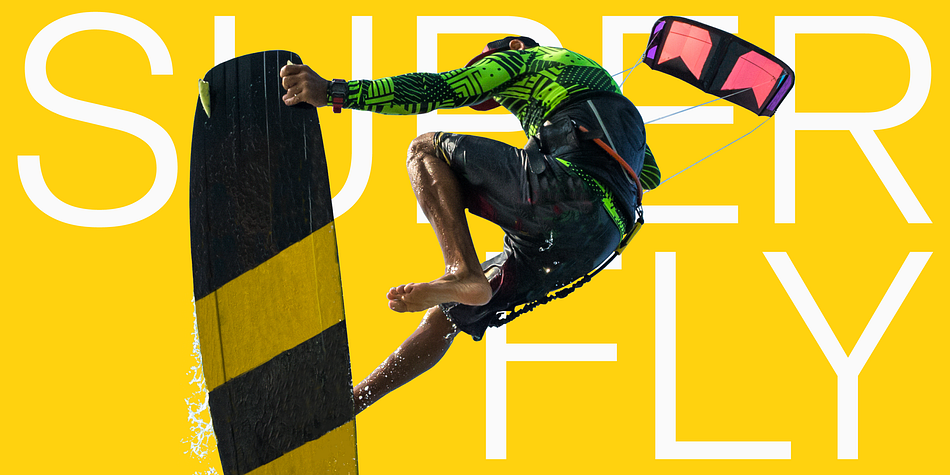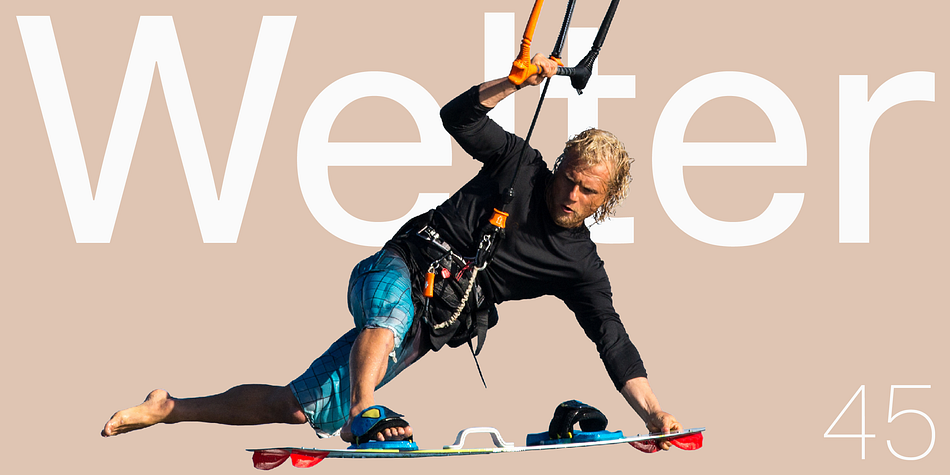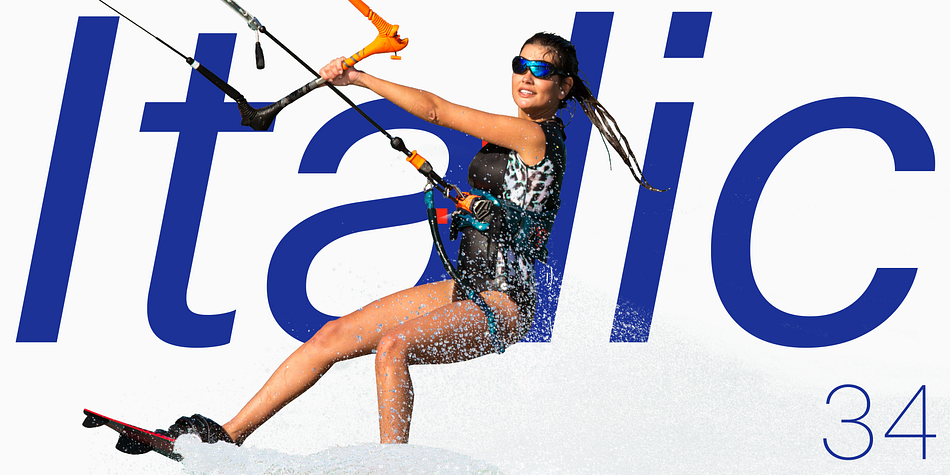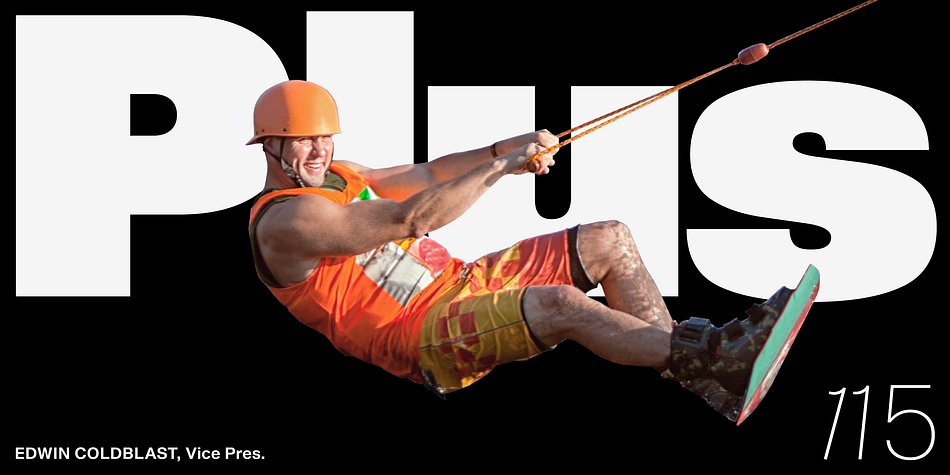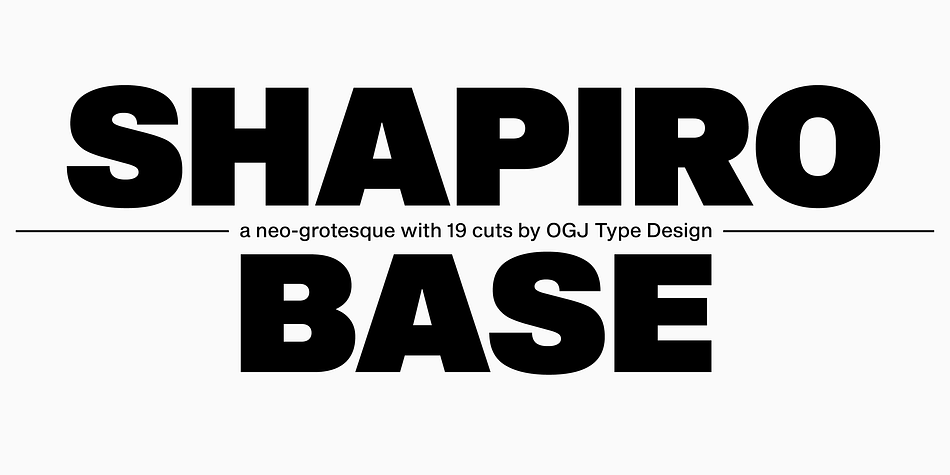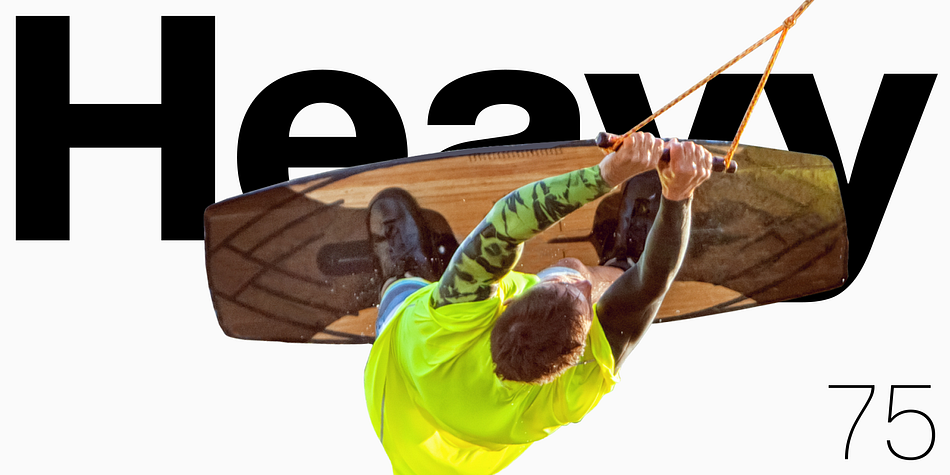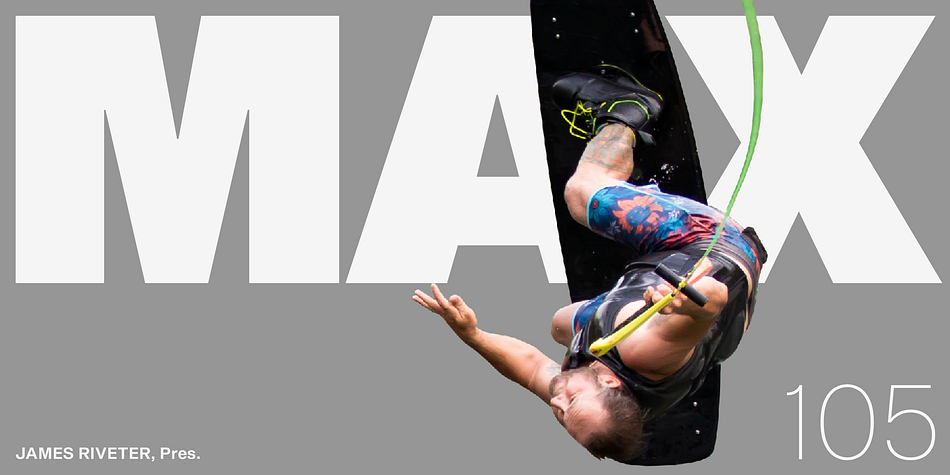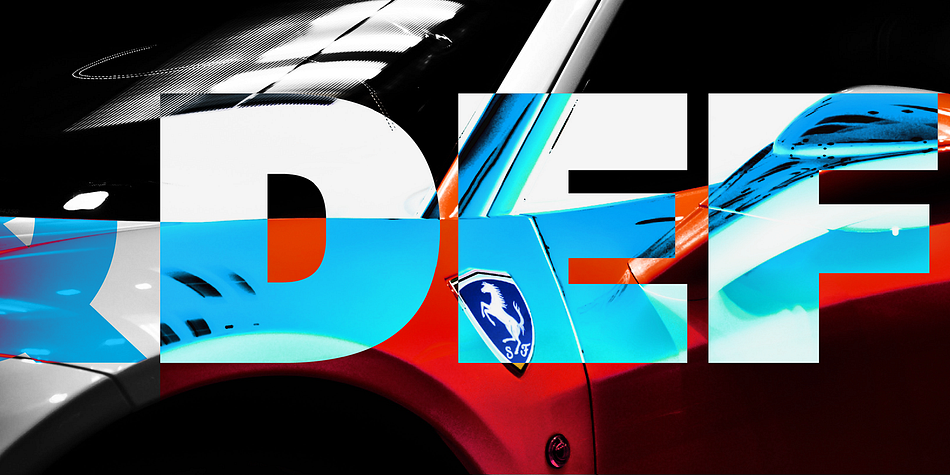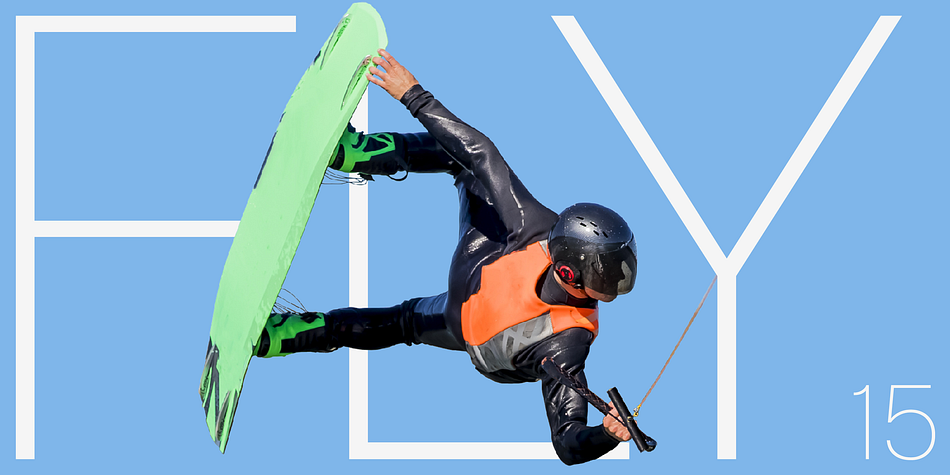
Designed by Oliver Jeschke, Shapiro Base is a sans serif font family. This typeface has nineteen styles and was published by OGJ Type Design.
A neo-grotesque holding a total of 19 cuts — from very light to very bold.
On the base of the classical form, Shapiro meets all the requirements of a well-developed font, such as good readability, a sympathetic overall impression, as well as a balanced gray-effect.
The bold cuts are a great starting point for a timeless branding.